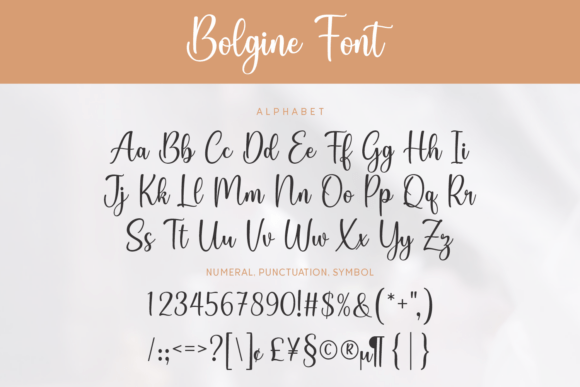
Bolgine Font: Elevate Your Designs with Elegance and Sophistication
In the world of typography, fonts play a crucial role in conveying the tone and personality of a design. For those seeking a refined and elegant script font, Bolgine is an exceptional choice. With its graceful swashes and flowing letterforms, Bolgine is perfect for creating stunning wedding invitations, high-end branding, social media posts, and feminine designs. In this article, we’ll explore the features and benefits of Bolgine, and how it can bring a polished and romantic look to your projects.
What is Bolgine Font?
Bolgine is a modern script font that exudes luxury and sophistication. Its elegant design makes it ideal for designs that require a touch of refinement and glamour. The font features beautiful swashes and flowing letterforms, which give it a unique and distinctive look. Bolgine is perfect for designers who want to create stunning visual content that stands out from the crowd.
Key Features of Bolgine Font
- Elegant Script Design: Bolgine features a beautiful script design with flowing letterforms and graceful swashes.
- Modern Calligraphy Style: The font has a modern calligraphy style that gives it a fresh and contemporary look.
- Luxurious Feel: Bolgine’s elegant design and beautiful swashes give it a luxurious feel that’s perfect for high-end branding and designs.
- Perfect for Wedding Invitations: The font’s elegant design makes it perfect for creating stunning wedding invitations and other formal event materials.
- Feminine and Elegant: Bolgine’s design is feminine and elegant, making it perfect for designs that require a touch of sophistication and glamour.
Use Cases for Bolgine Font
Bolgine is a versatile font that can be used in a variety of design projects. Here are some use cases where Bolgine excels:
- Wedding Invitations: Bolgine’s elegant design makes it perfect for creating stunning wedding invitations, save-the-date cards, and other formal event materials.
- High-End Branding: The font’s luxurious feel and modern calligraphy style make it ideal for high-end branding, packaging, and advertising.
- Social Media Posts: Bolgine can be used to create stunning social media posts, including Instagram captions, Facebook posts, and Twitter headers.
- Feminine Designs: The font’s feminine and elegant design makes it perfect for designs that require a touch of sophistication and glamour, such as fashion branding, beauty packaging, and lifestyle blogs.
Benefits of Using Bolgine Font
Using Bolgine font in your designs offers several benefits, including:
- Unique and Distinctive Look: Bolgine’s elegant design and beautiful swashes give it a unique and distinctive look that sets it apart from other fonts.
- Time-Saving: The font’s elegant design and luxurious feel save designers time and effort in creating visually stunning content.
- Consistency: Bolgine’s consistent design and elegant style ensure that your brand’s visual identity is cohesive and professional.
- Professionalism: The font’s luxurious feel and modern calligraphy style give your designs a professional and polished look.
Tips for Using Bolgine Font
Here are some tips for using Bolgine font in your designs:
- Pair with Neutral Colors: Bolgine looks stunning when paired with neutral colors, such as white, black, and gray.
- Experiment with Swashes: The font’s beautiful swashes can add a touch of elegance and sophistication to your designs.
- Use for Headings and Titles: Bolgine is perfect for headings and titles, where its elegant design and luxurious feel can make a lasting impression.
- Mix with Other Fonts: Bolgine can be paired with other fonts to create a unique and visually stunning typography.
In conclusion, Bolgine font is a refined and elegant script font that brings a polished and romantic look to every project. Its modern calligraphy style, luxurious feel, and beautiful swashes make it perfect for wedding invitations, high-end branding, social media posts, and feminine designs. With its unique and distinctive look, Bolgine is sure to elevate your designs and make them stand out from the crowd.
FAQs about Bolgine Font
- What is Bolgine font?: Bolgine is a refined and elegant script font with graceful swashes and flowing letterforms.
- What is Bolgine font used for?: Bolgine is perfect for wedding invitations, high-end branding, social media posts, and feminine designs.